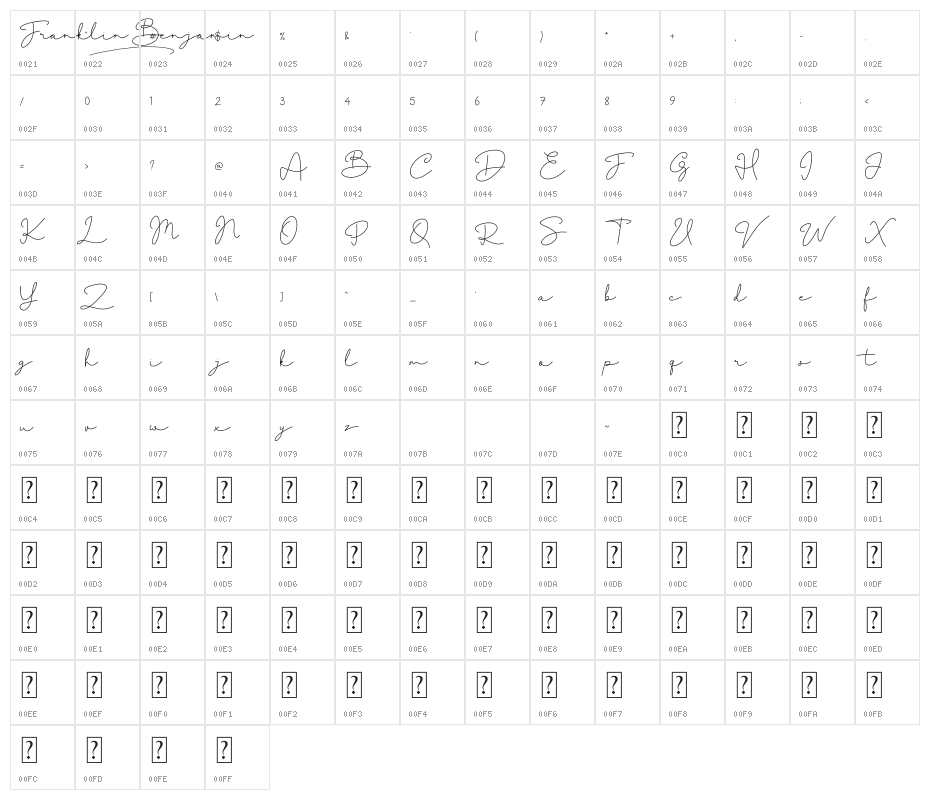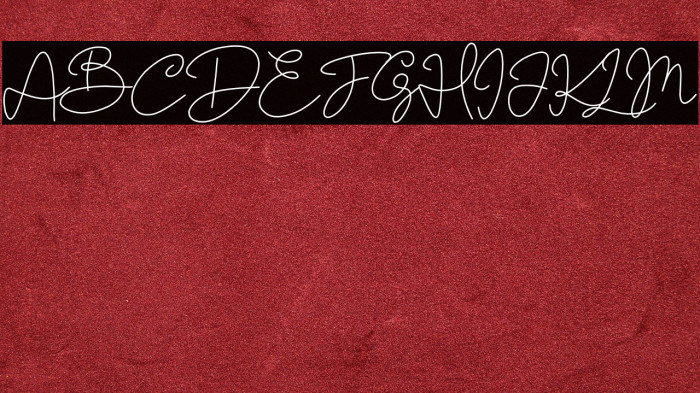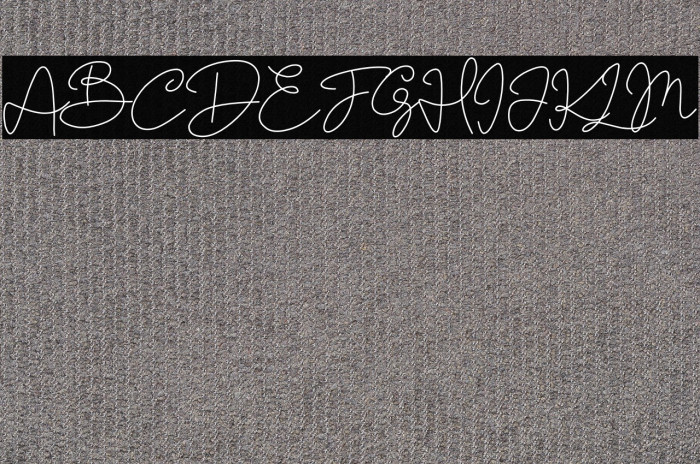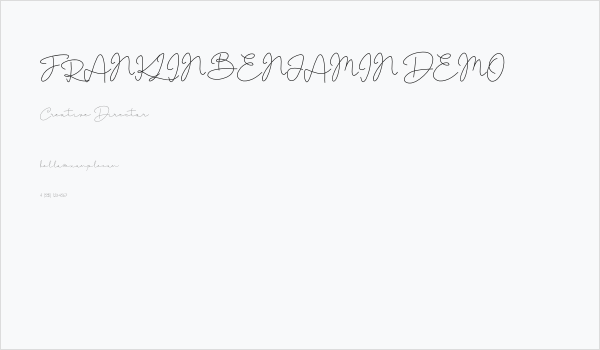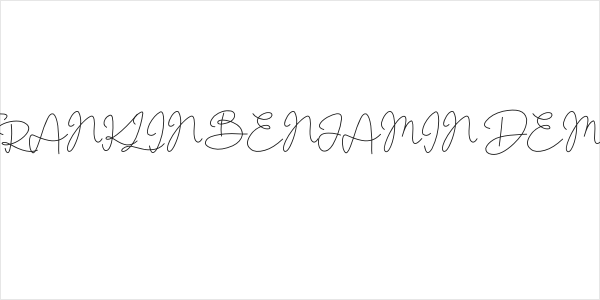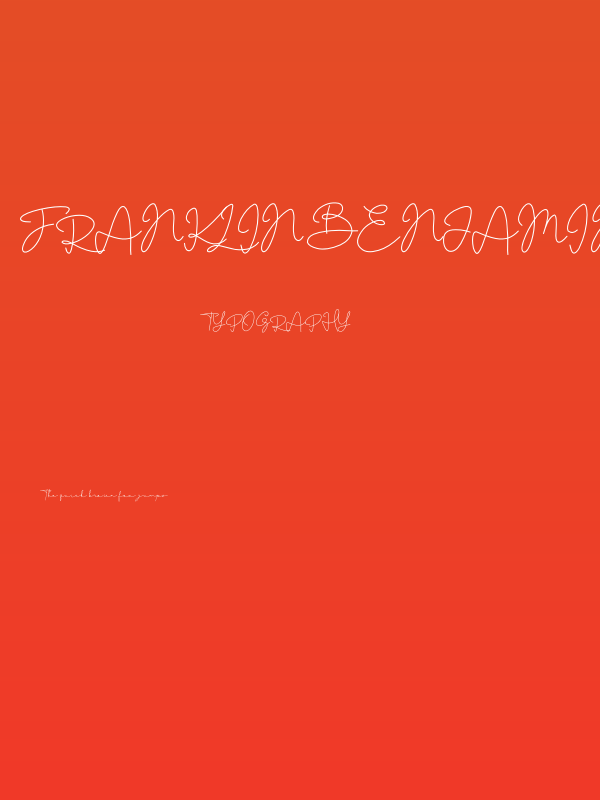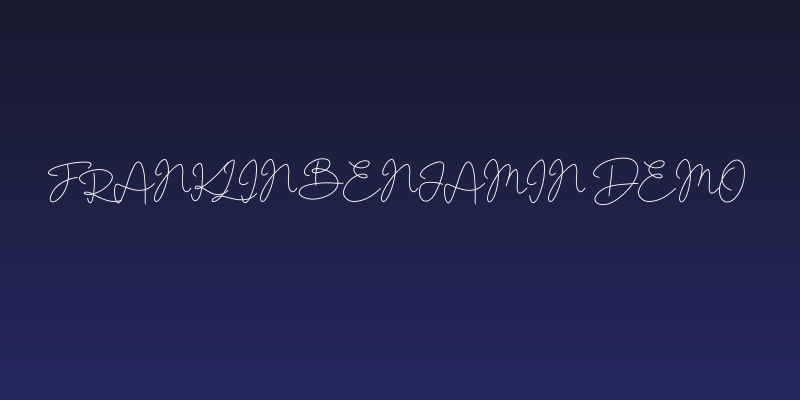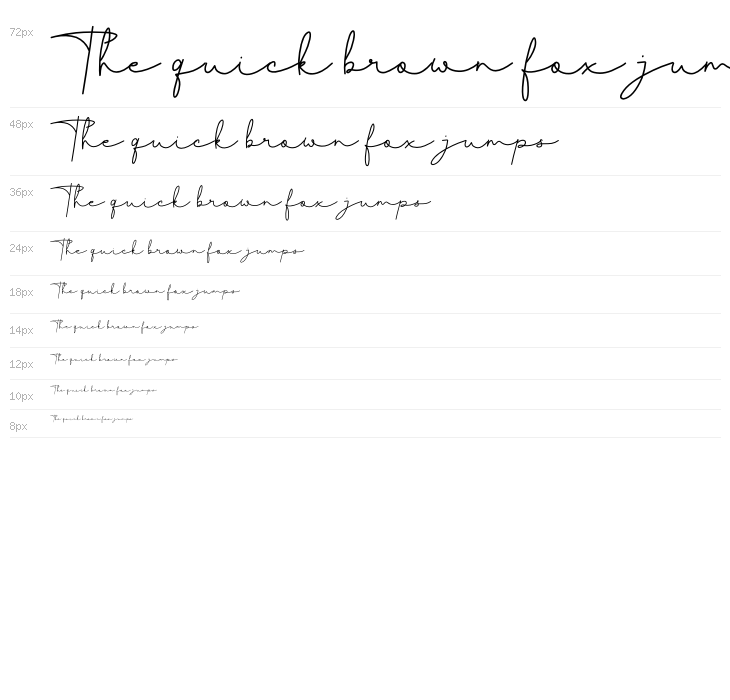
FRANKLIN BENJAMIN DEMO Font
FRANKLIN BENJAMIN DEMO Description
This font features an elegant and flowing script style, characterized by its smooth, continuous strokes and graceful curves. The uppercase letters are particularly ornate, with intricate loops and flourishes that add a touch of sophistication. The lowercase letters maintain a consistent flow, creating a harmonious and cohesive appearance. The numerals are clear and legible, complementing the overall aesthetic. Special characters are thoughtfully designed, maintaining the font's elegant style. This font is ideal for projects that require a personal, handwritten touch, such as invitations, greeting cards, or branding materials.